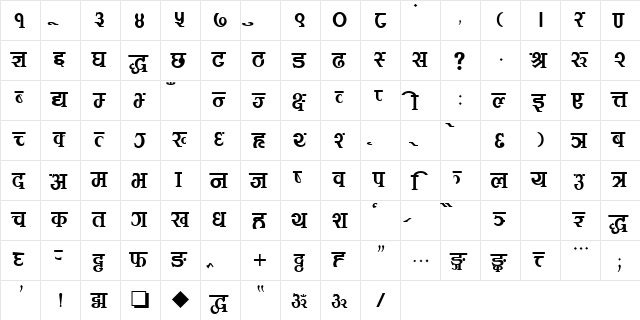
Meghnaz Regular
Design Context for Meghnaz Typeface
Meghnaz offers clean, dependable letterforms without strong stylistic allegiance, making it a practical choice for designers who need flexibility.